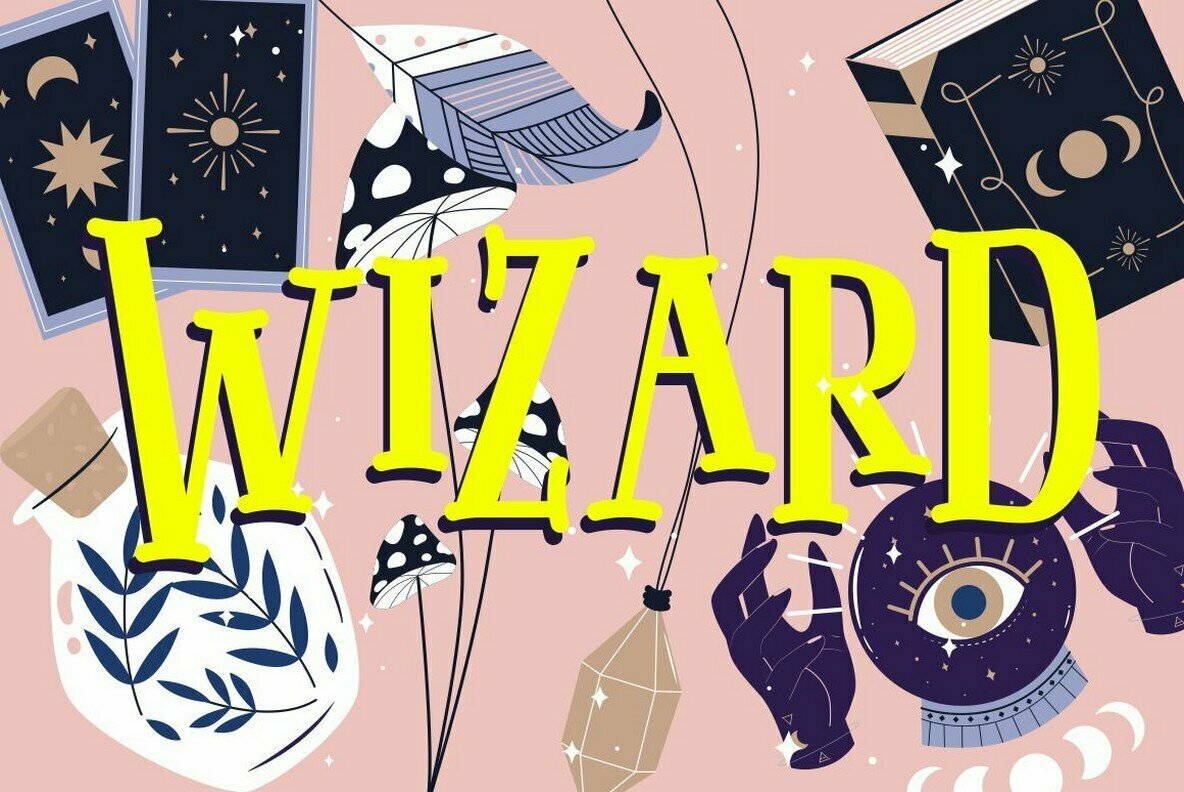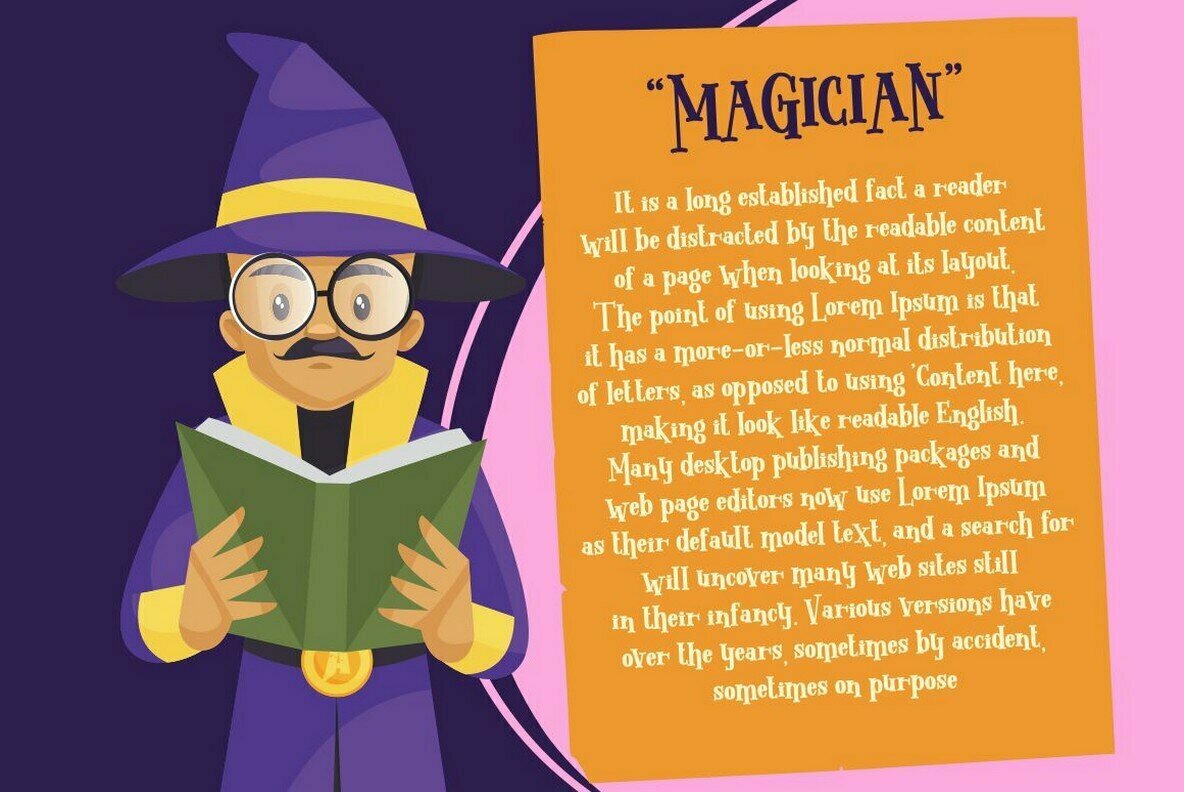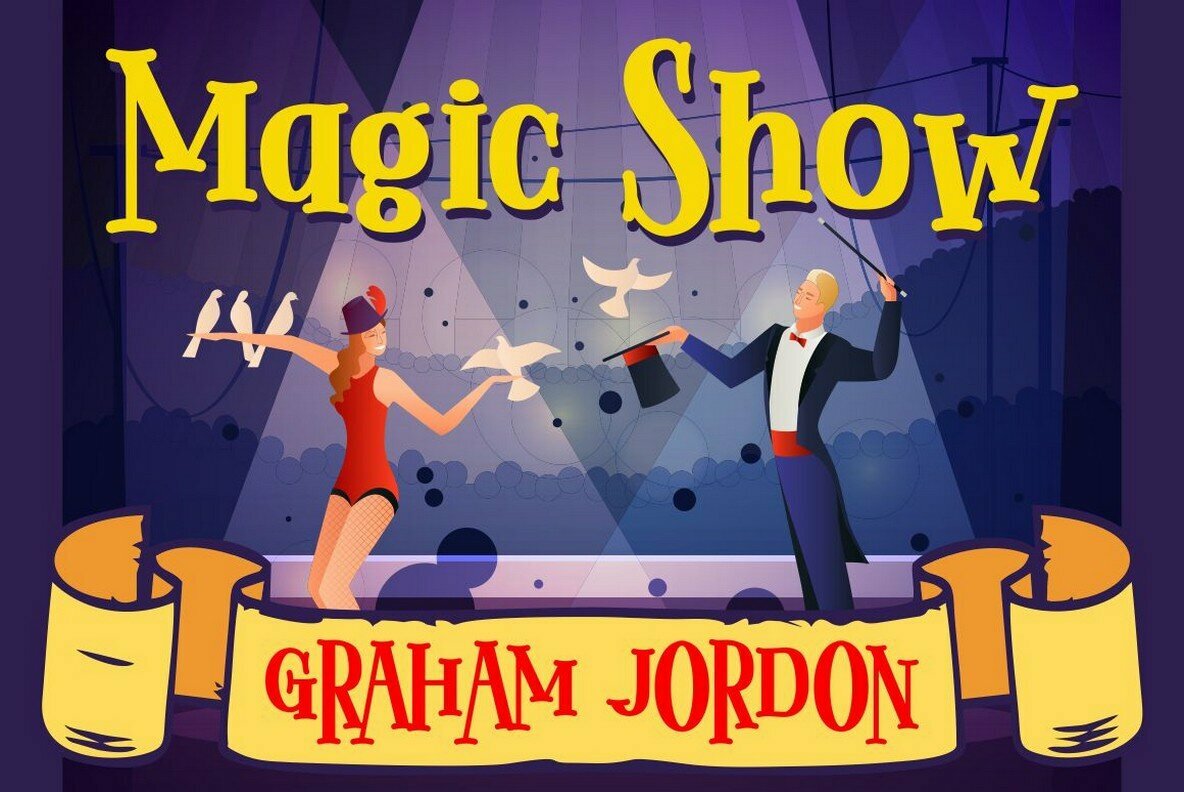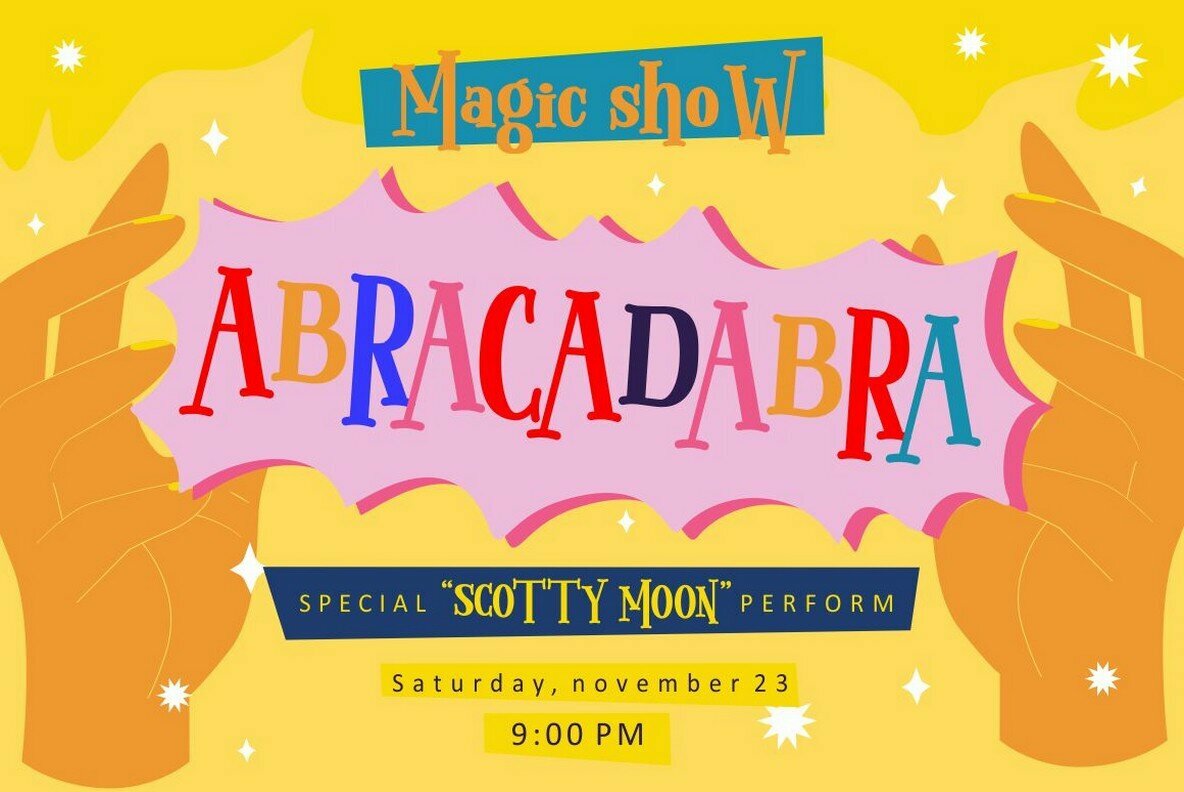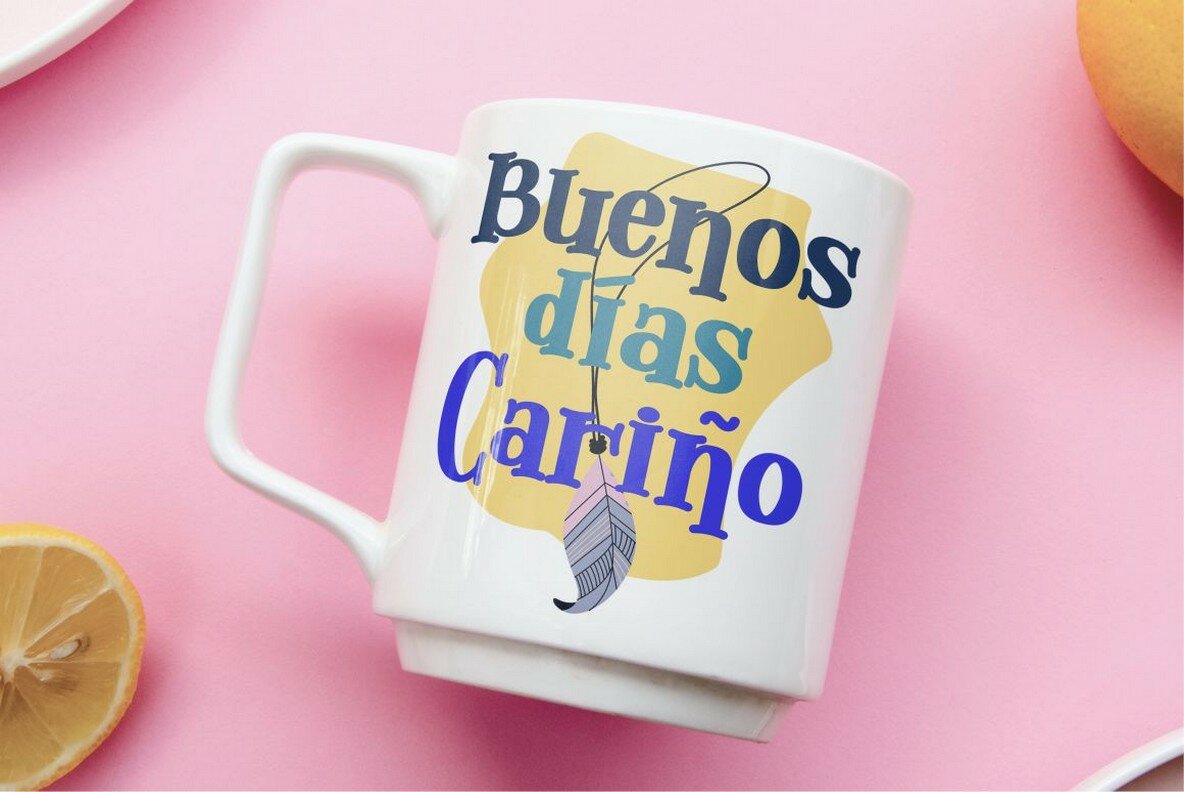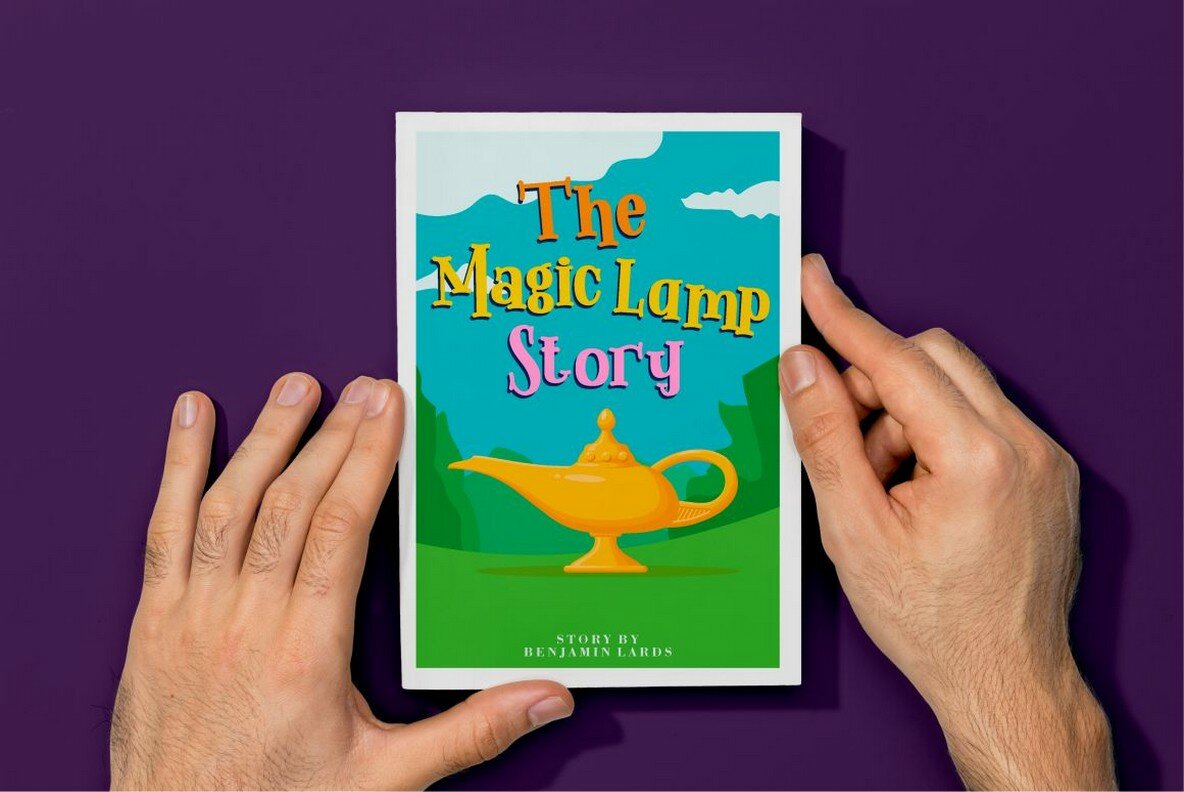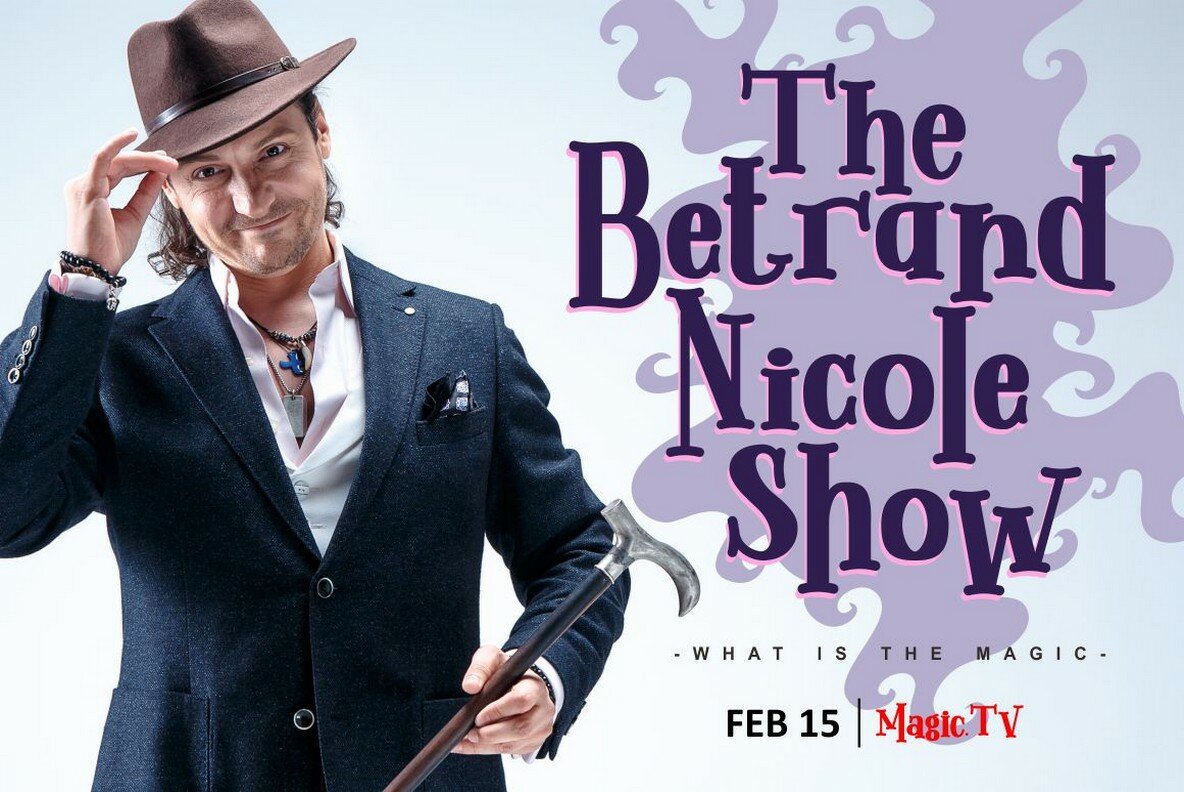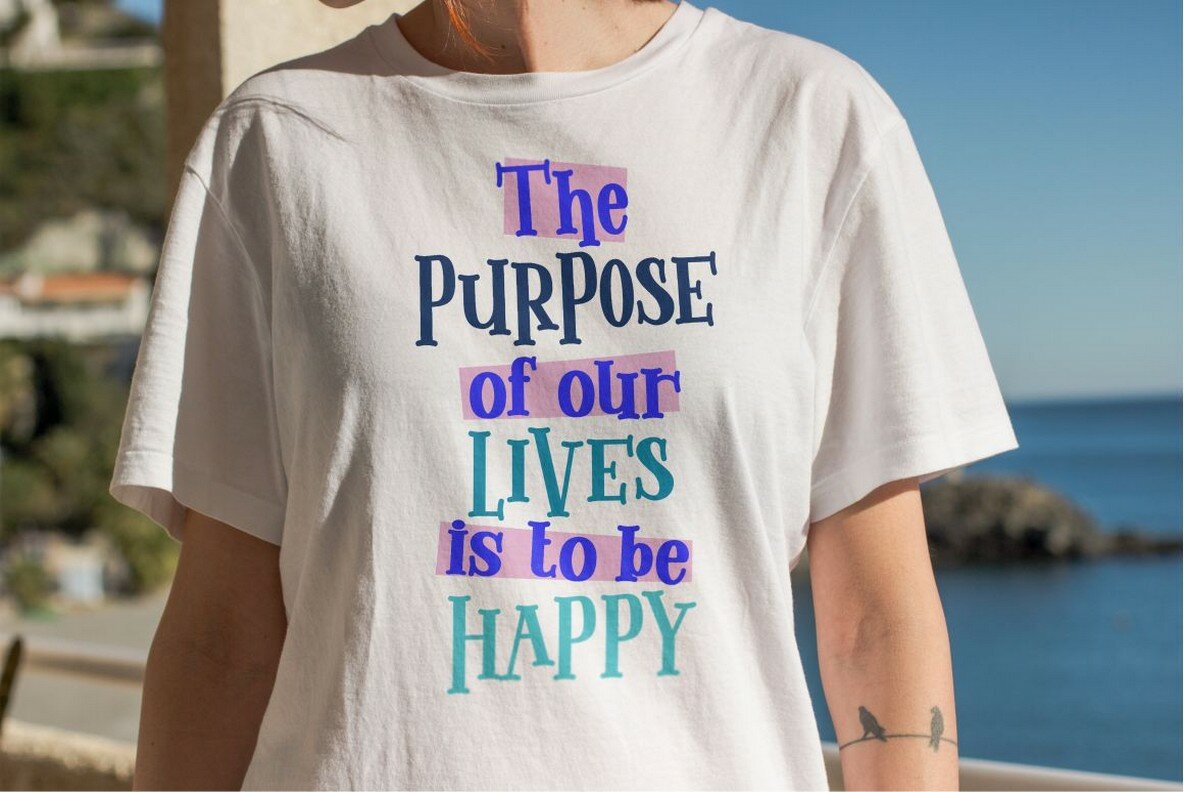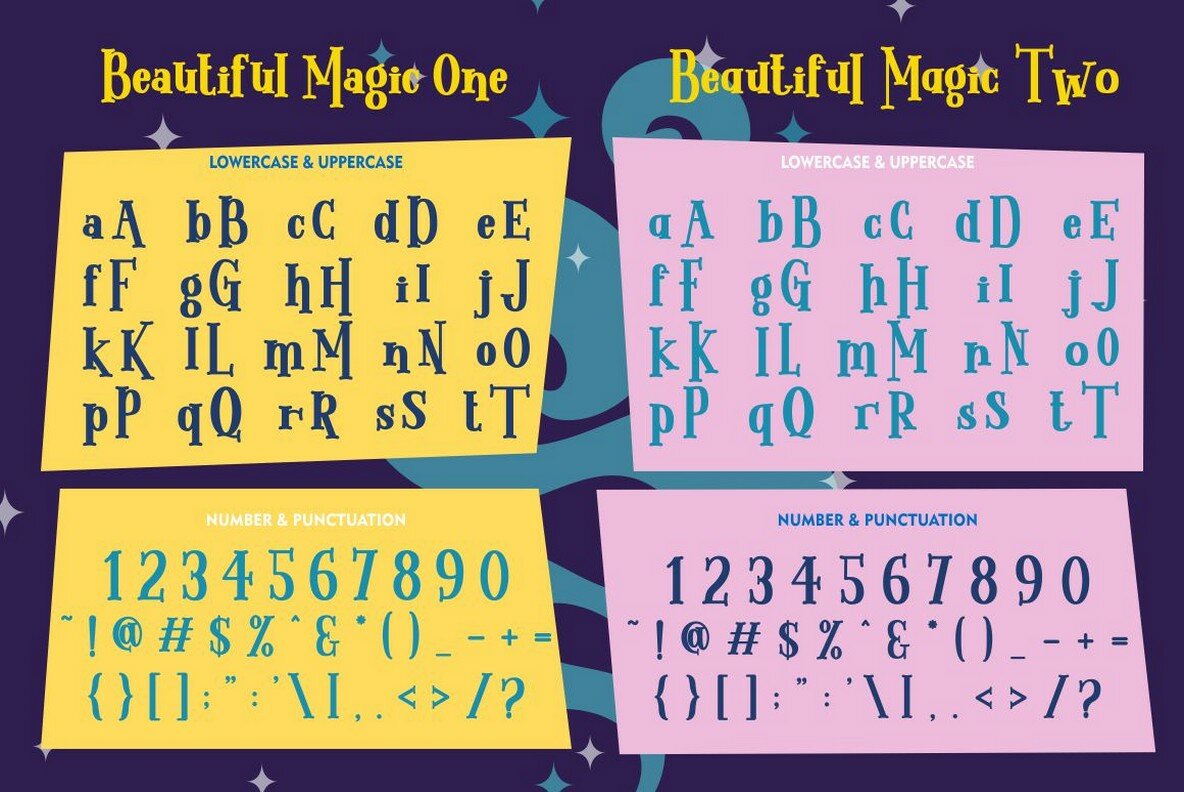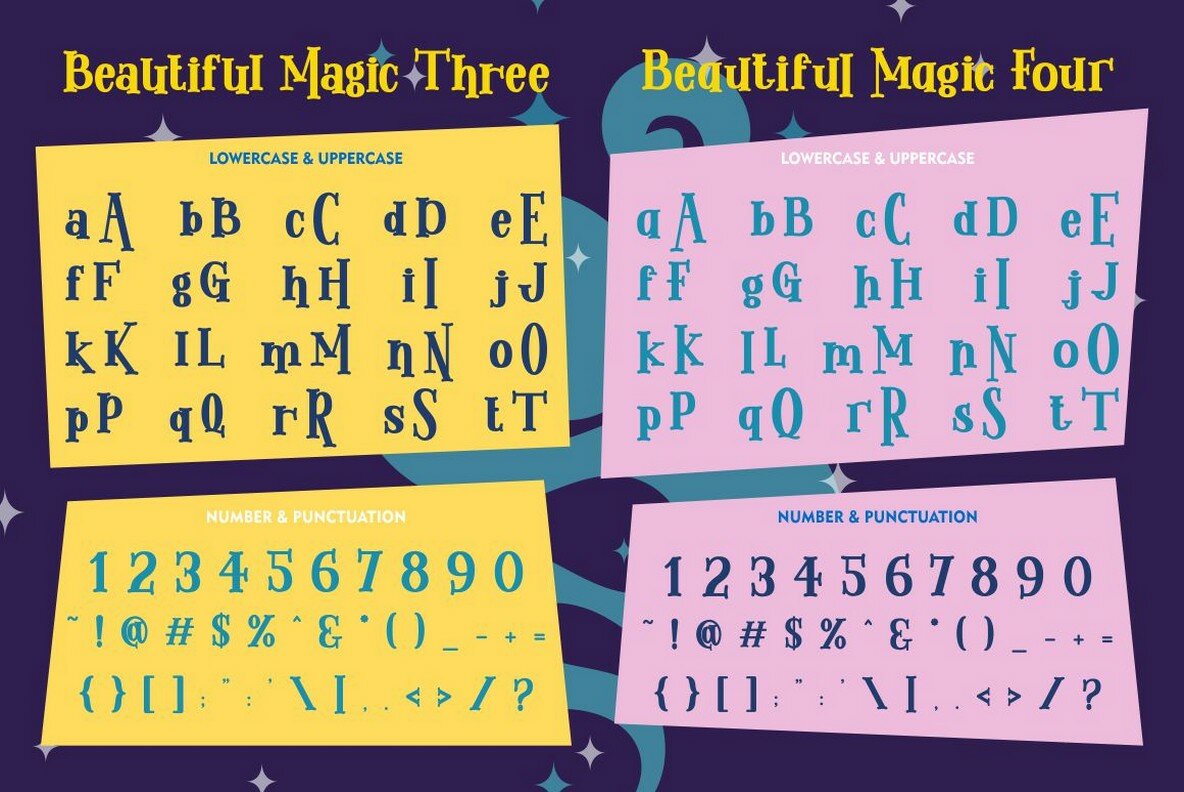
Beautiful Magic Font
Beautiful Magic offers a distinctive and playful approach to typography with its unique character heights and varying baselines. This quirky display slab serif font by Putra Novembria Candra Kusuma brings a sense of whimsy to any project. The font features four variations, each designed to add a lively touch to your creative endeavors. Ideal for title, invitation, heading, cover, poster, logos, quotes, product packaging, merchandise, social media, and greeting cards, Beautiful Magic transcends traditional font styles with its charming irregularities. Its multilingual support further enhances its versatility across global projects Features:Beautiful Magic: A Quirky Display Slab Serif